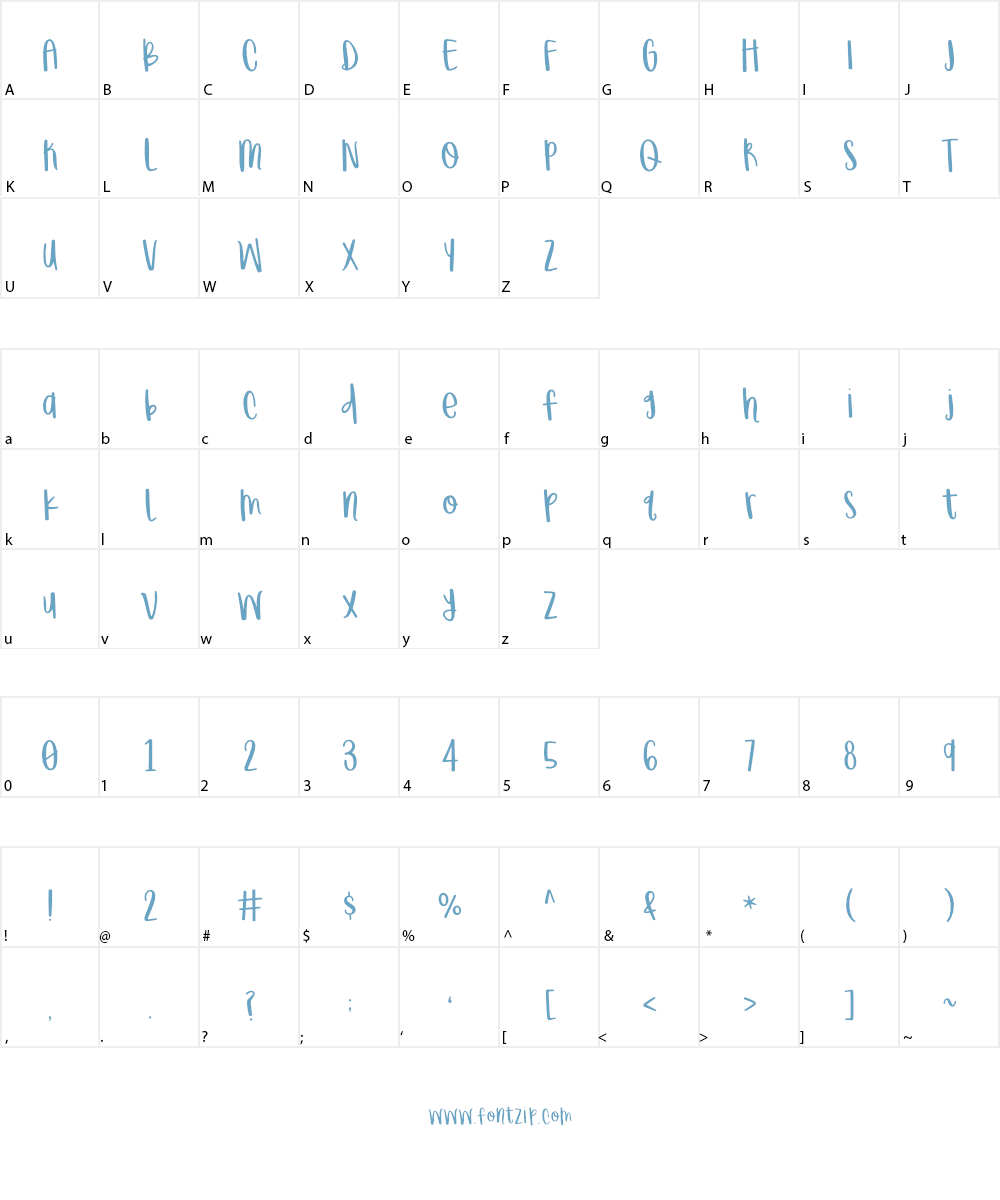
Submarine Beach is a funloving & carefree unicase font with alternates and ligatures. The font includes an extended Latin character set as well as Greek and Cyrillic.